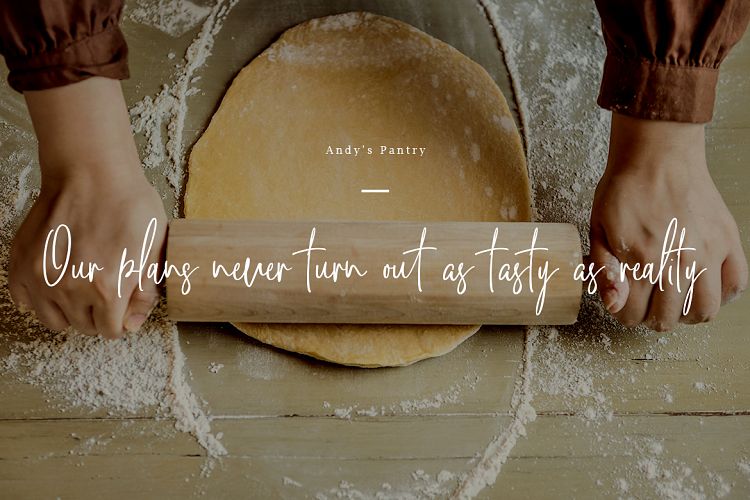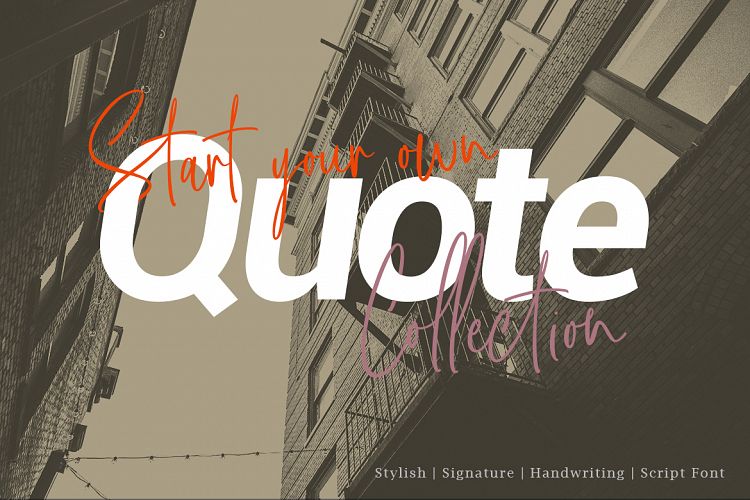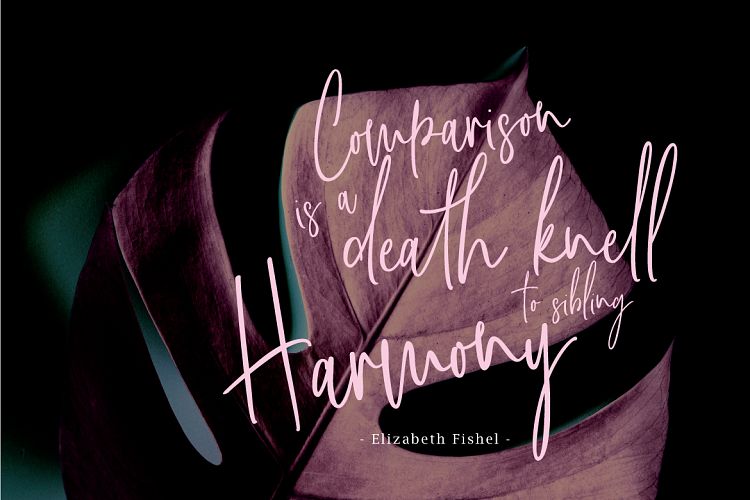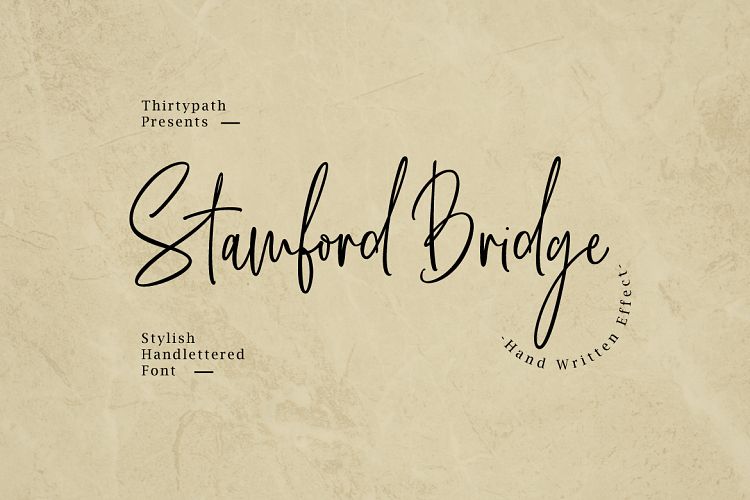
Stamford Bridge Script Font
A new modern & fresh script with a handwritten and script style make this font looks elegant, natural, stylish and perfect for any awesome projects that need handwriting taste. Introducing Stamford Bridge Font. It is designed and shared by Thirtypath. Stamford Bridge Font is a handwritten font. The style of handwriting and irregular but still elegant, and you will enjoy to use this font style. Stamford Bridge Script is perfect for branding projects, homeware designs, product packaging – or simply as a stylish text overlay to any background image.